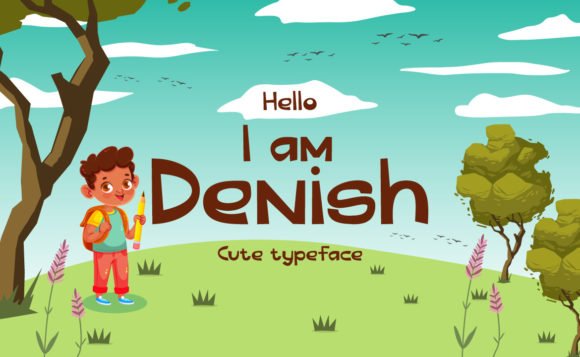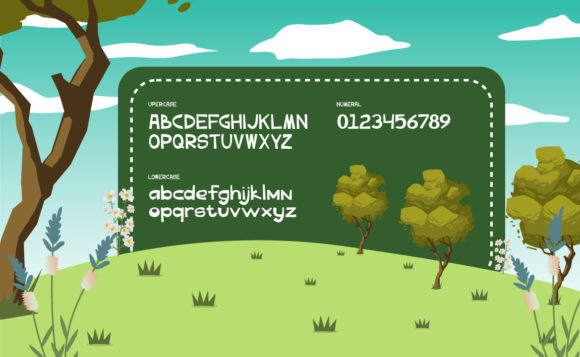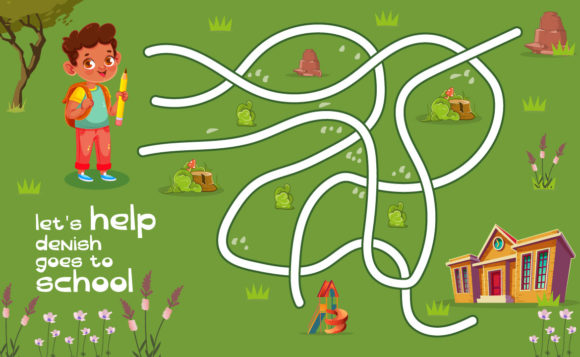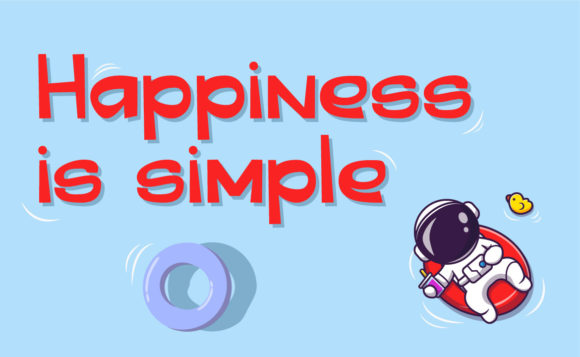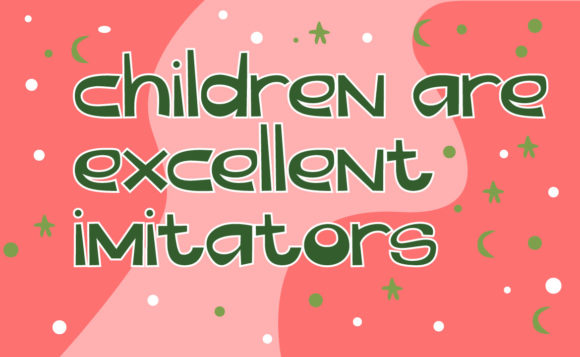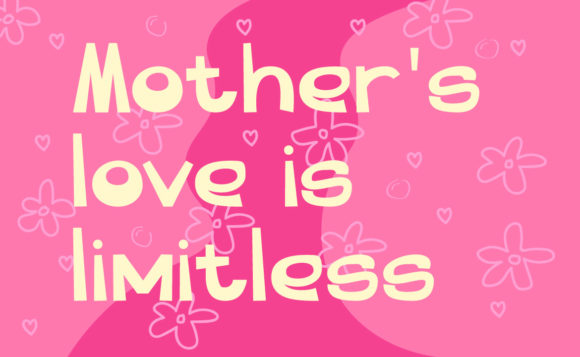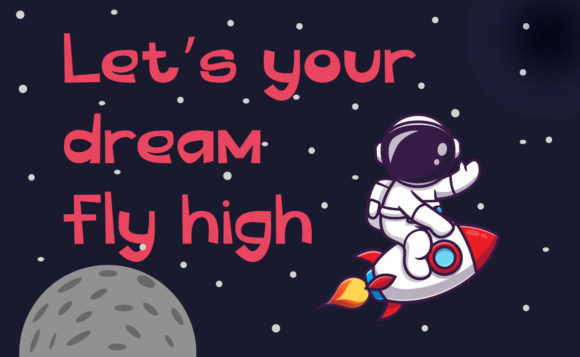
Give Your Designs a Bold Twist with Denish Font
Remember that moment when you’re brainstorming ideas for a new project, and suddenly a font pops into your mind that perfectly captures the essence of your concept? For designers, that ‘aha’ moment is priceless. It’s the spark that sets your creativity ablaze and propels you to create something truly remarkable. For me, that moment came when I stumbled upon the Denish Font.
The Denish Font is a modern display font that’s as readable as it is stylish. Its smooth curves make it perfect for fashion branding or editorial designs where you need to convey a sense of sophistication and elegance. Adding the Denish Font to your projects is a confident choice that will yield impressive results. Whether you’re a seasoned designer or just starting out, incorporating this versatile font into your work will elevate your designs to the next level.
Denish Font Key Features
- Unique Characteristics: Denish Font features a unique blend of modern and traditional elements, with distinctive letterforms and subtle flair, making it an excellent choice for creative projects.
- Kerning and Ligatures: Denish Font includes advanced kerning and ligature features, ensuring smooth text flow and elegant typography, even at small font sizes.
- Font Style Variations: The font family includes multiple styles, such as Regular, Italic, Bold, and Bold Italic, providing users with flexibility and options for varying text emphasis.
Denish Font Review
Overall, I think Denish Font is an interesting choice for designers looking for a unique font. ✨ Here are a few things that work well:
- It has a distinct, handwritten feel that can add character to your designs.
- The font is highly customizable, with many options for adjusting size, spacing, and style.
- It’s a great choice for projects that need a more casual, approachable tone.
However, there are a few limitations to keep in mind: ⚠️
- The font may not be suitable for projects that require a more formal tone or a high level of professionalism.
- Some of the characters may not be as legible at smaller font sizes, which can be a problem for projects with tight space constraints.
- The font may not be as widely supported across different operating systems and devices.
Overall, I think Denish Font is a solid choice for designers who are looking for a unique, handwritten font. While it may not be the best fit for every project, it’s definitely worth considering for projects that need a more casual, approachable tone.
Tips for Getting the Most Out of Denish Font
Denish Font is ideal for creating unique and eye-catching designs. Some tips for getting the most out of it include:
- Pair Denish Font with other fonts to create a visually appealing combination.
- Use Denish Font for headings or titles to draw attention to important information.
Denish Font is commonly used for:
- Graphic design projects, such as logos, posters, and brochures.
- Digital marketing materials, such as social media posts and email campaigns.
- Branding and identity design projects, such as business cards and letterheads.
Alternatives to “Denish Font” for Designers
Great Vibes is a modern script font ideal for creating eye-catching headings and titles. It features elegant, flowing lines and a relaxed feel, making it suitable for designs that require a touch of sophistication and playfulness. Compared to Denish Font, Great Vibes is more cursive and refined, while Denish Font is more casual and handwritten.
Carolyna Pro is a versatile, elegant script font perfect for creating beautiful headings, titles, and even body text. It features a mix of modern and classic elements, making it suitable for a wide range of design projects. Compared to Denish Font, Carolyna Pro is more polished and refined, while Denish Font is more casual and informal.